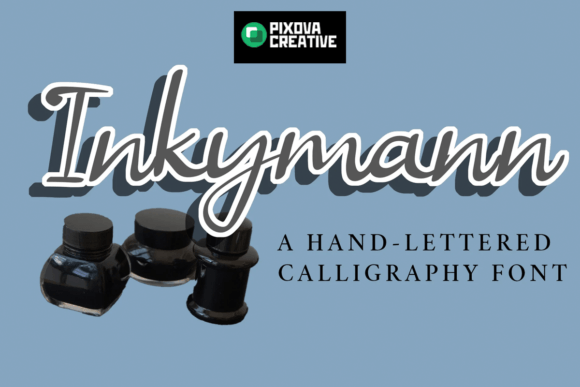
How Inkymann Helped My Bakery Look More Professional and Memorable
Running a small bakery means everything from the taste of your pastries to the look of your packaging matters. When I decided to refresh my brand, I knew that typography would play a key role in how customers perceived my business. I wanted something that felt elegant, personal, and just a little bit artistic—something that would make my labels stand out on the shelf but also feel trustworthy.
The Right Font Can Make All the Difference
I’ve always believed that good design starts with the smallest details. One of the first changes I made was updating my product labels. I used to rely on generic fonts that looked safe but lacked personality. It wasn’t until I discovered Inkymann that I realized how much of an impact a well-chosen typeface can have.
Inkymann is a distinctive, hand-crafted font with a calligraphic style. Its flowing, elegant letters give a personal and artistic touch to any text. What really caught my eye was how it balanced creativity with readability. Unlike some overly decorative fonts, Inkymann feels refined and approachable, making it perfect for both branding and everyday use.
From Labels to Menus: A Font That Works Everywhere
I started by using Inkymann on my bakery boxes. The result was immediate—I noticed more customers stopping to look at my products, and I even got a few compliments on the design. But I didn’t stop there. I applied the same font to my menu boards, thank-you cards, and even social media graphics.
What I love about Inkymann is its versatility. It works beautifully as a headline font, adding a touch of sophistication to my logo and product titles. For smaller text like ingredient lists or pricing, I paired it with a clean sans serif font to ensure readability without losing the character of the brand.
One of my favorite uses has been for my seasonal labels. During the holidays, I create custom tags for special items like cinnamon rolls or spiced cookies. With Inkymann, these labels feel festive and handcrafted, which aligns perfectly with the vibe of my shop.
Why Inkymann Is Perfect for Small Businesses
As a small business owner, I value fonts that are not only beautiful but also practical. Inkymann checks both boxes. It’s easy to read at a glance, which is essential for things like packaging and signage. Even when printed in small sizes, the legibility remains strong, which is a huge plus for mobile users and online shoppers.
Another thing I appreciate is the range of styles and weights available with Inkymann. Whether I’m designing a bold logo or a subtle tagline, there’s a version of the font that fits the moment. Plus, the included ligatures and alternates add a nice touch of personality without overwhelming the design.
Designing Consistency with Typography
Consistency is key when building a brand. I’ve found that using the same font across all my materials—from packaging to social media—creates a cohesive look that customers recognize. Inkymann helps me maintain this consistency while still allowing room for creativity.
When designing new templates for my website and Instagram, I often start with Inkymann. It adds a level of elegance that makes my content feel more polished. Pairing it with a modern sans serif font for body text keeps the design balanced and professional.
Practical Tips for Using Inkymann in Your Business
Whether you run a boutique, a café, or an online shop, typography plays a crucial role in how your brand is perceived. Inkymann isn’t just a font—it’s a tool that helps you create a visual identity that feels authentic and memorable.